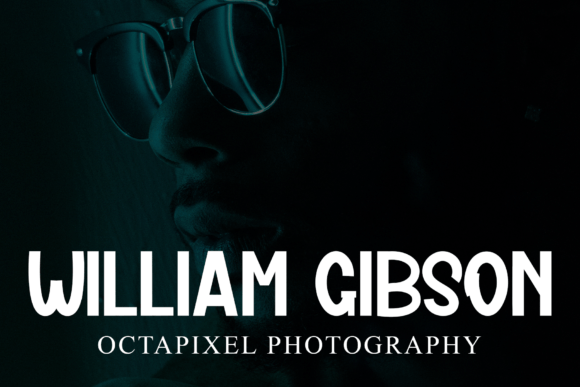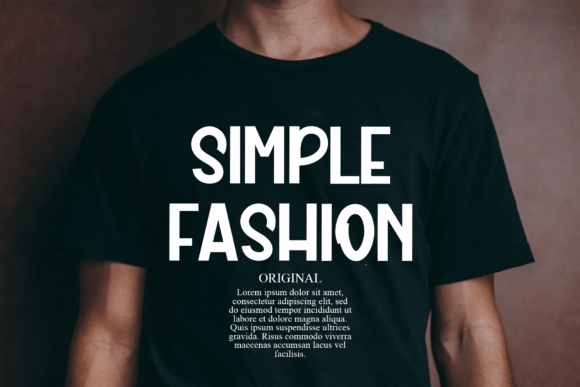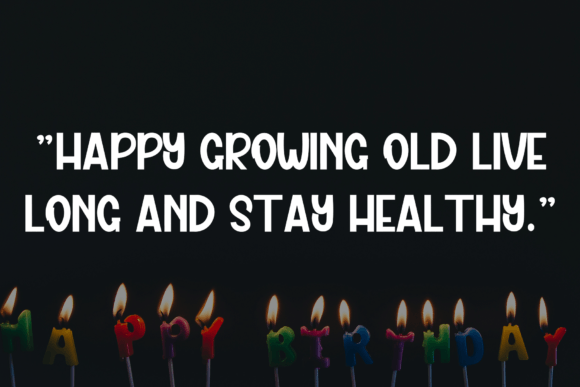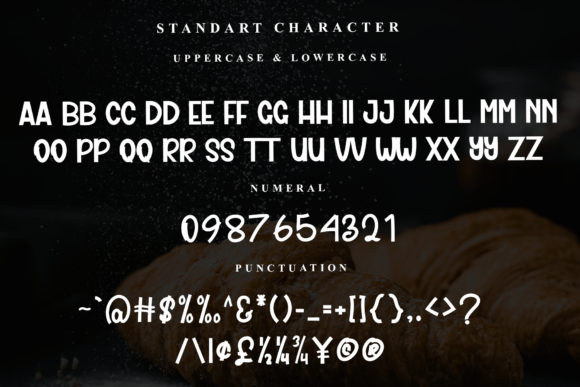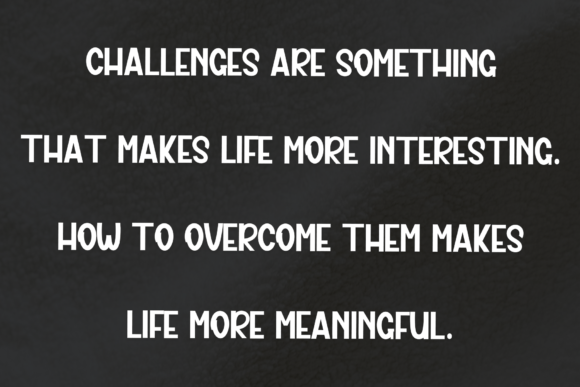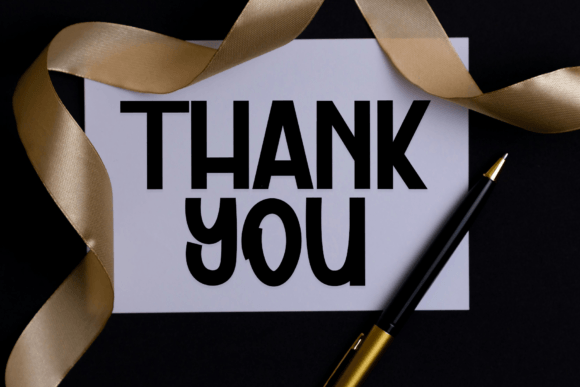
Bakery Font: Adding a Touch of Whimsy to Your Designs
Are you looking for a font that can add a dash of personality to your designs? Look no further than the Bakery font, a charming sans serif font that exudes warmth and authenticity. With its playful yet legible style, this font is perfect for a variety of projects, from greeting cards and invitations to branding and packaging.
The Charm of Bakery Font
Bakery font is a unique and captivating typeface that is sure to capture the attention of your audience. Its sans serif design gives it a clean and modern look, while its playful irregularities make it feel approachable and friendly. The font’s natural strokes and imperfections give it a handmade feel, as if it were written with a brush or a pen. This distinctive style makes Bakery font perfect for designers and crafters who want to add a touch of whimsy to their work.
Bakery font is a versatile typeface that can be used for a wide range of projects. Its playful style makes it perfect for:
- Greeting Cards: Add a personal touch to your greeting cards with Bakery font. Its whimsical style makes it perfect for birthdays, holidays, and other special occasions.
- Invitations: Make your invitations stand out with Bakery font. Its playful style is sure to set the tone for a fun and memorable event.
- Branding: Use Bakery font to add a touch of personality to your brand. Its unique style makes it perfect for businesses that want to stand out from the crowd.
- Packaging: Add a touch of whimsy to your packaging with Bakery font. Its playful style makes it perfect for food labels, product packaging, and more.
The Benefits of Using Bakery Font
There are many benefits to using Bakery font in your designs. Some of the most notable advantages include:
- Unique Style: Bakery font has a unique and captivating style that is sure to set your designs apart from the crowd.
- Playful yet Legible: The font’s playful style is balanced with legibility, making it easy to read and understand.
- Handmade Feel: The font’s natural strokes and imperfections give it a handmade feel that is perfect for designers and crafters who want to add a personal touch to their work.
- Versatile: Bakery font can be used for a wide range of projects, from greeting cards and invitations to branding and packaging.
Tips for Using Bakery Font
Here are a few tips for using Bakery font in your designs:
- Pair with Other Fonts: Bakery font pairs well with other fonts, such as serif fonts and script fonts. Experiment with different combinations to find the perfect look for your design.
- Use for Headings and Titles: Bakery font is perfect for headings and titles, where its playful style can really shine.
- Add Texture and Patterns: Consider adding texture and patterns to your design to give it a more handmade feel.
Bakery font is a charming and captivating typeface that is perfect for designers and crafters who want to add a touch of whimsy to their work. With its playful yet legible style, this font is perfect for a variety of projects, from greeting cards and invitations to branding and packaging. Its unique style, handmade feel, and versatility make it a great addition to any design toolkit.